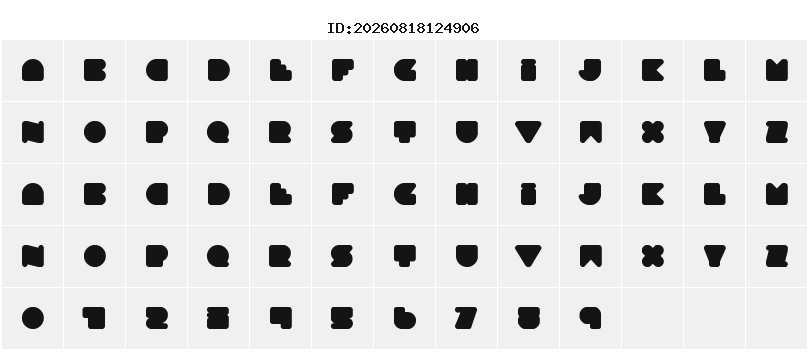
Smoothtasticness Preview
• Font Name: Smoothtasticness
• Font ID: Smoothtasticness:Version 1.00
• Full Font Name: Smoothtasticness
• Version: Version 1.00 June 3, 2011, initial release
• PostScript Name: Smoothtasticness
• Character Count: 144
• Description: This font was created using FontCreator 5.5 from High-Logic.com
About Smoothtasticness.ttf
Smoothtasticness.ttf is a modern, elegant sans-serif font designed for ultimate readability and visual harmony. Perfect for branding, headlines, web design, and print materials.